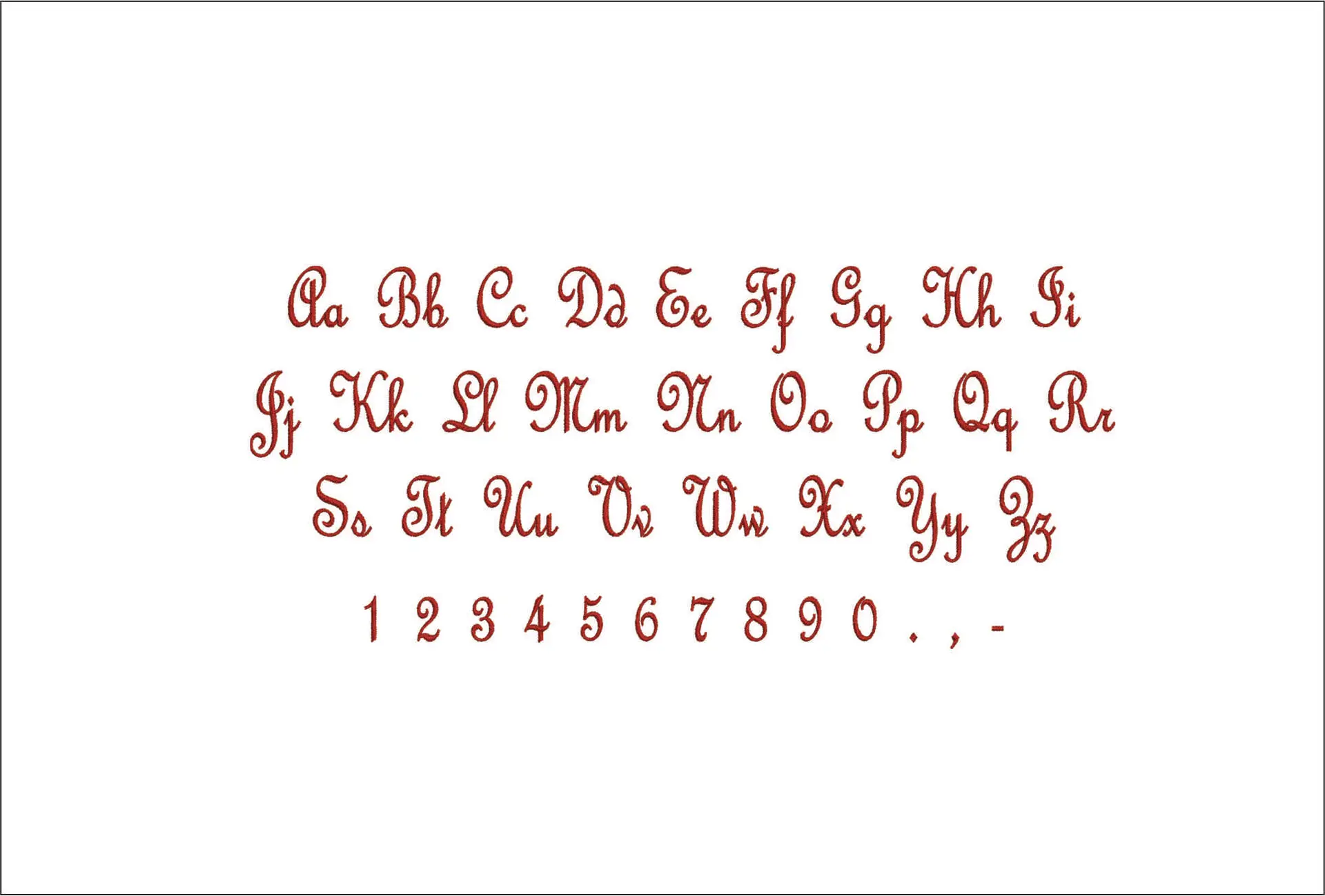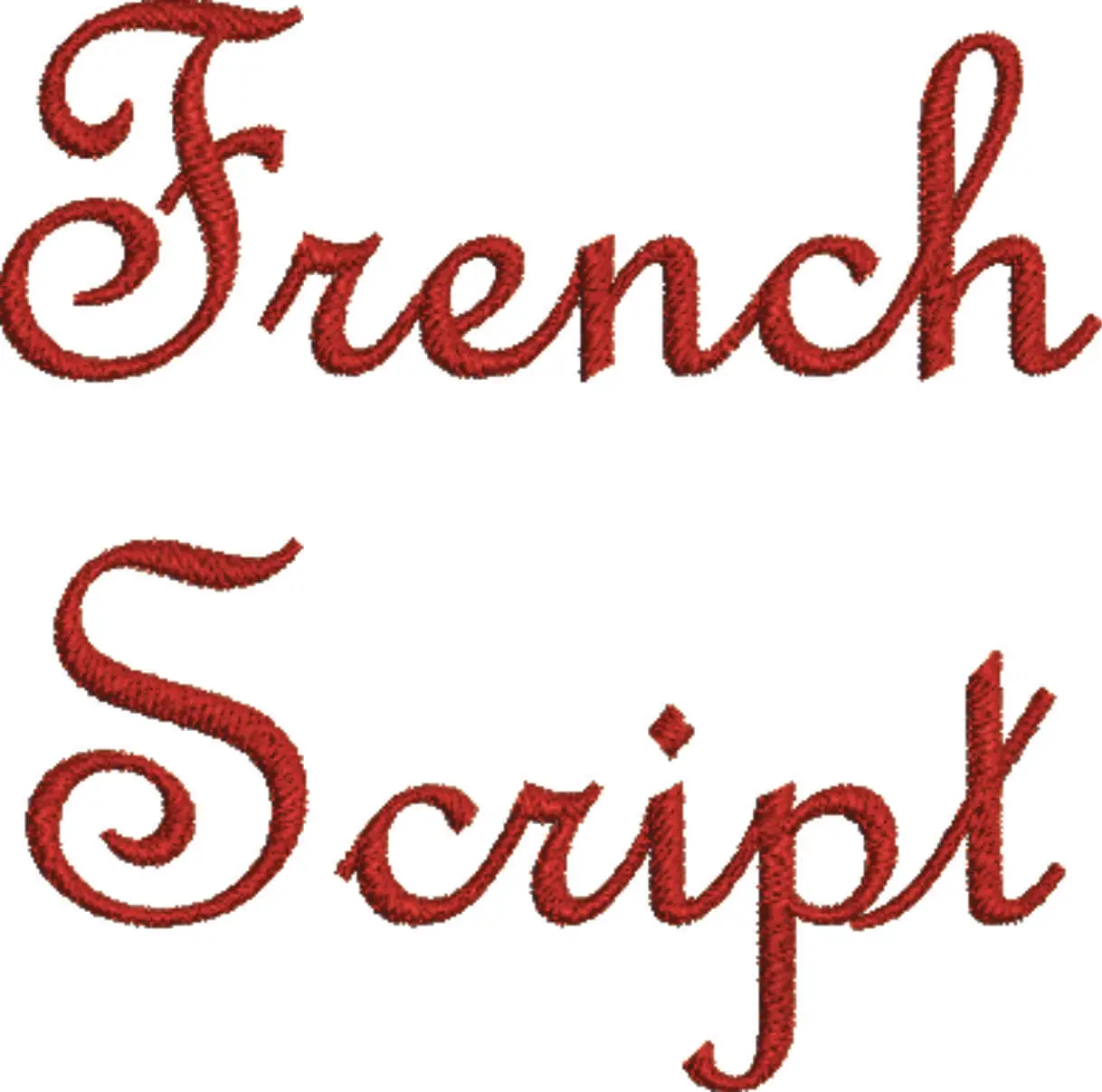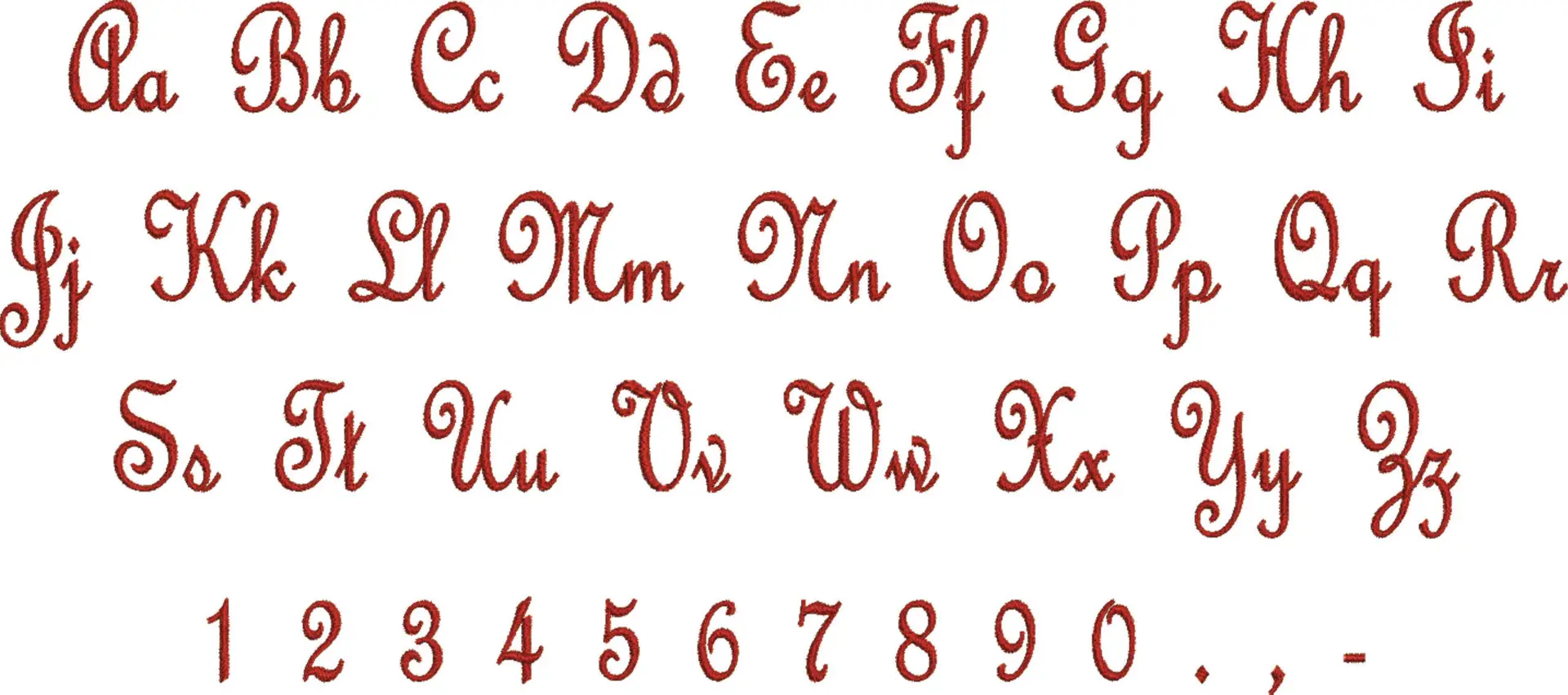
Elegant French Script gives names and monograms a flowing, dressmaker-style finish for linens, clothing and thoughtful personalised gifts.
For elegant lettering, this French Script embroidery font set gives your names, initials and short words a refined, flowing look. The sample’s ornate capitals, especially the decorative F and S, set the tone for monograms that feel formal without turning stiff. It suits embroiderers personalising wedding linens, christening gifts, keepsake clothing or boutique-style accessories.
Stitch it on pillowcases, hand towels, robe cuffs, napkins, tote bags or the chest of a shirt when you want the wording itself to be the decoration. The cursive style reads soft and polished, with enough flourish to stand out beautifully on plain cotton, linen and smooth woven fabrics. In a single thread colour it keeps that classic dressmaker feel, and it pairs especially well with clean, uncluttered layouts where the script can take centre stage.